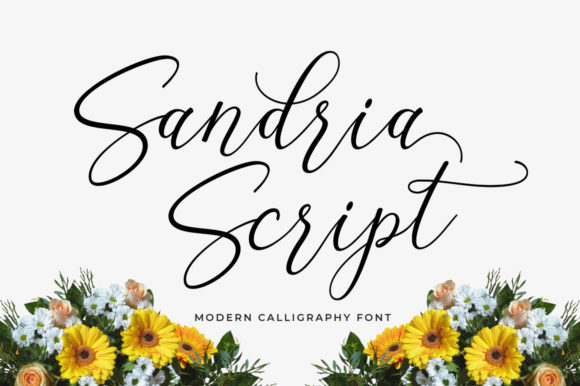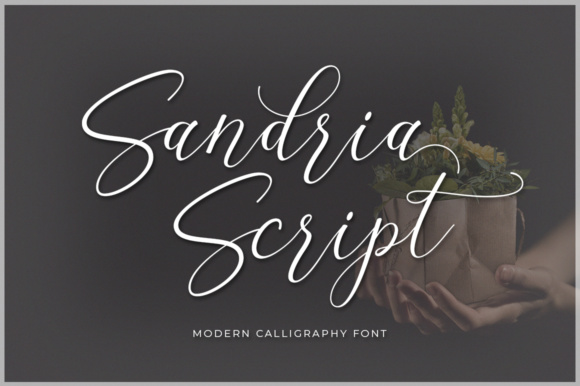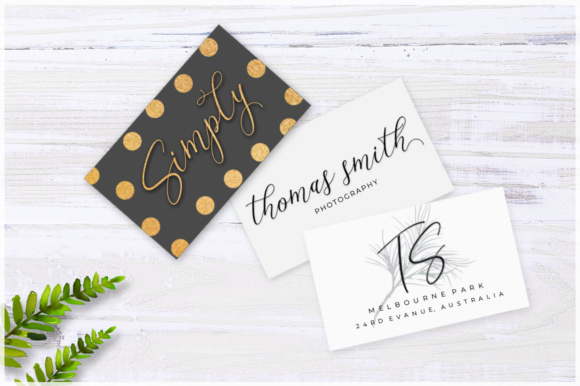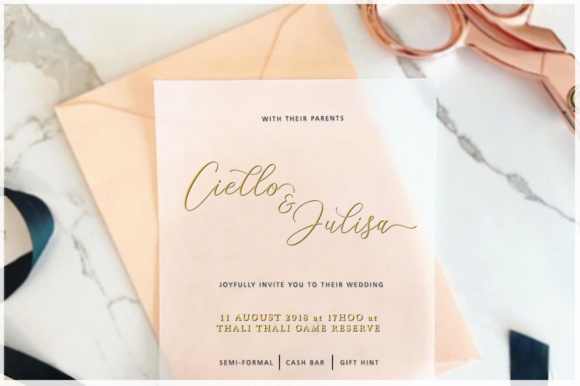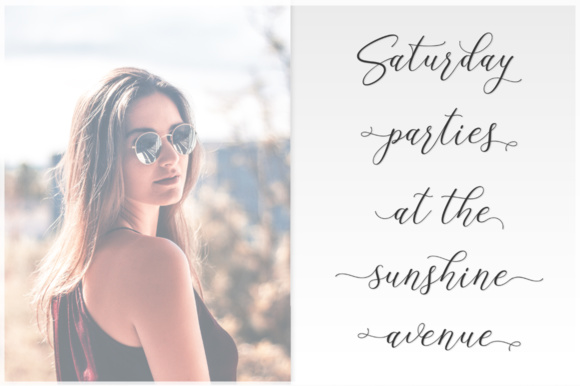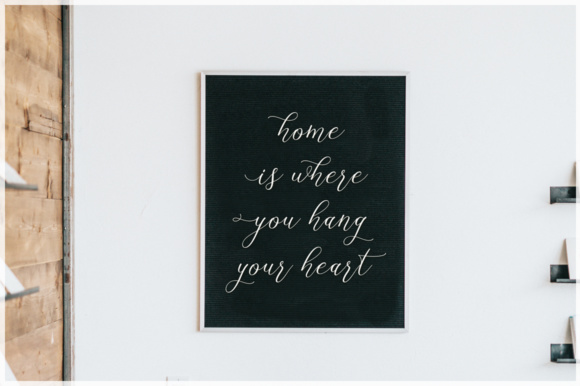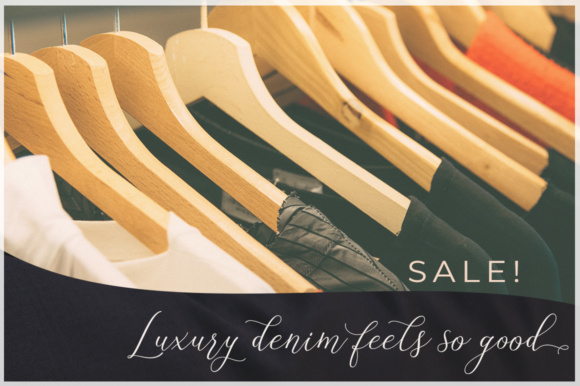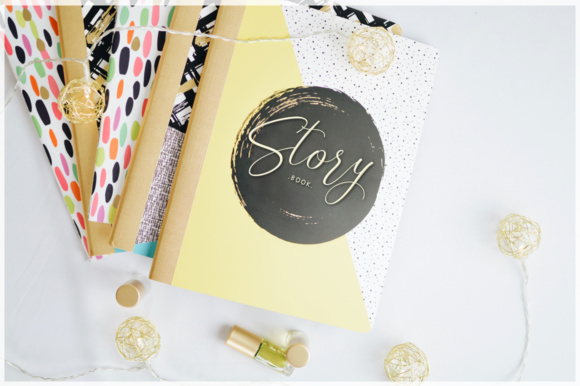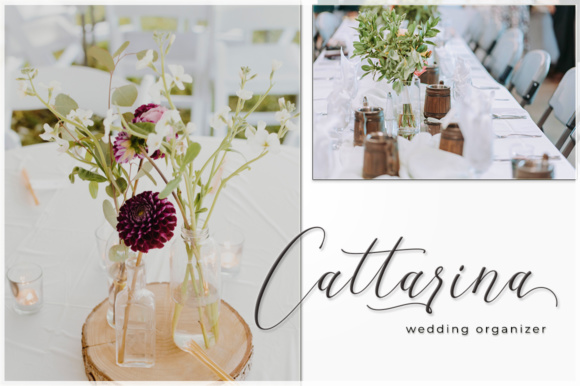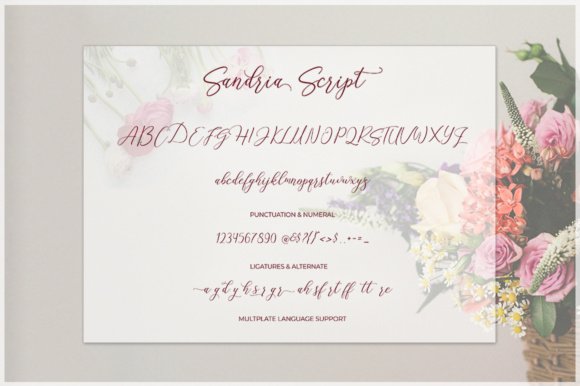
HomeScript FontsSandria Script Font Script Fonts Sandria Script Font FacebookXPinterestWhatsApp Sandria Script Font Poster 2 Sandria Script Font Poster 3 Sandria Script Font Poster 4 Sandria Script Font Poster 5 Sandria Script Font Poster 6 Sandria Script Font Poster 7 Sandria Script Font Poster 8 Sandria Script Font Poster 9 Sandria Script Font Poster 10 About Sandria Script Font The Sandria is an elegant script font. It has a trendy and feminine style with an irregular baseline. DOWNLOAD NOW People also explored Rastegar Font Pink Christmas Font Chicken Kitchen Font Klaris Font Cozy Mom Font Bookish, a comfortable slab serif Font Signalline Crimson Dream Font Anime Quotes Font 263 0 TagsSandria Script Font Previous articleAmstonia FontNext articleRusshell Font LEAVE A REPLY Cancel reply Comment: Please enter your comment! Name:* Please enter your name here Email:* You have entered an incorrect email address! Please enter your email address here Website: Save my name, email, and website in this browser for the next time I comment. Personal Use Free Klotee Personal Use Free Read more about this font Nottingsam Personal Use Free Read more about this font Rakesly Personal Use Free Read more about this font Rise of Kingdom Personal Use Free Read more about this font BLOG Best Fonts for YouTube Videos: Make Your Thumbnails Stand Out Best Fonts for YouTube Videos: Make Your Thumbnails Stand Out Choosing the right font can make a massive difference in how your YouTube videos perform.... Using Fonts in Digital Marketing: Tips to Strengthen Your Brand Identity Where to Buy American Fonts Online in 2024 Best Fonts for T-Shirt Design – Top 2025 Picks